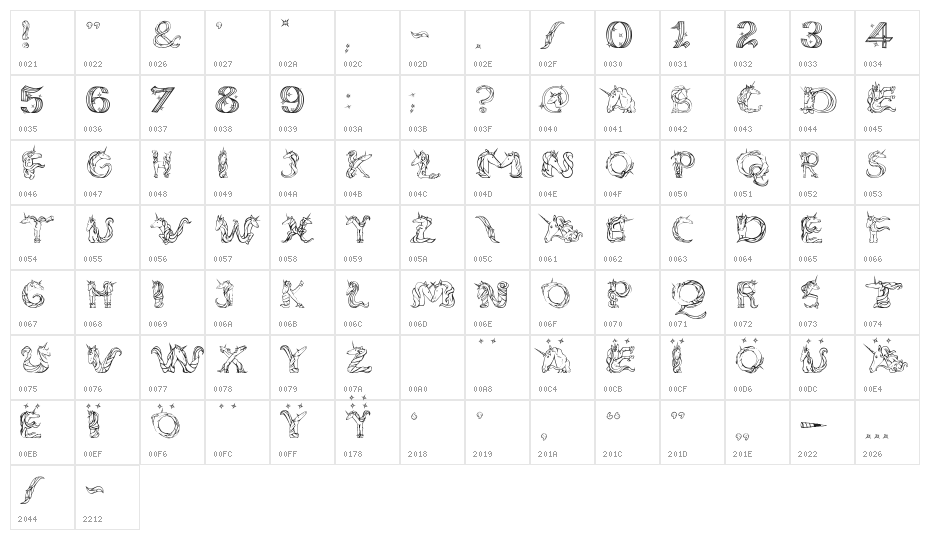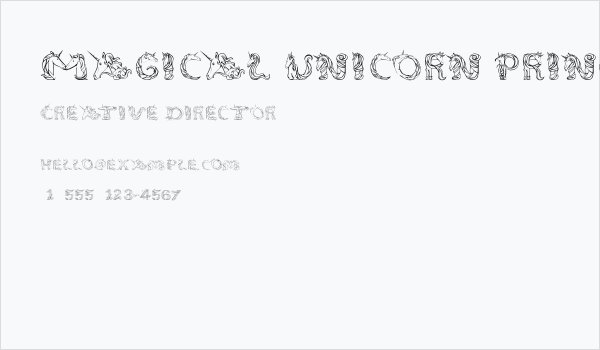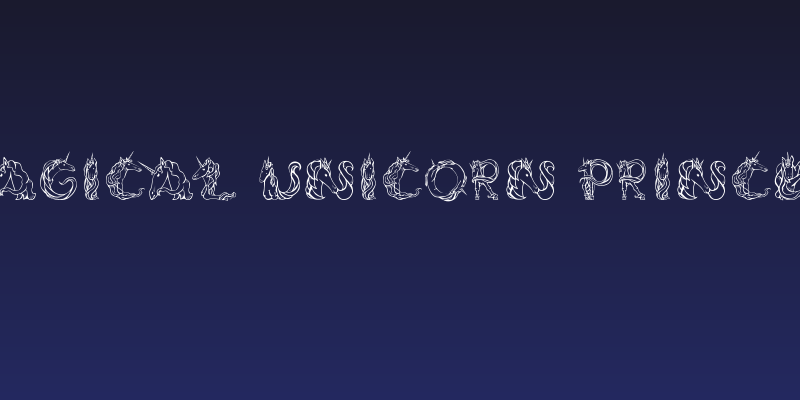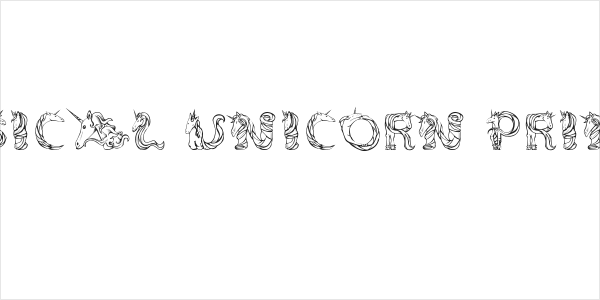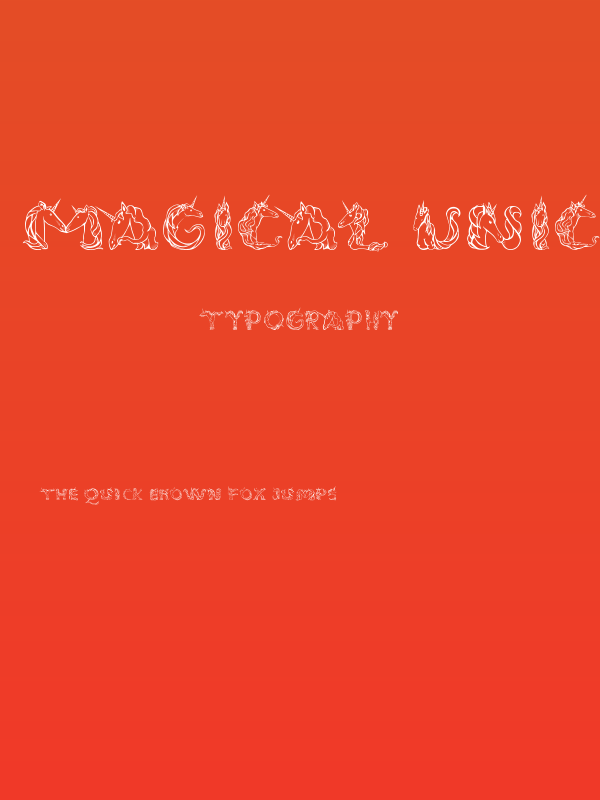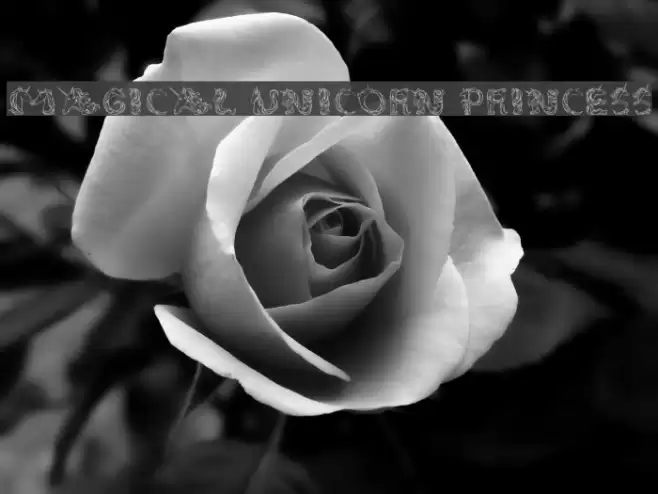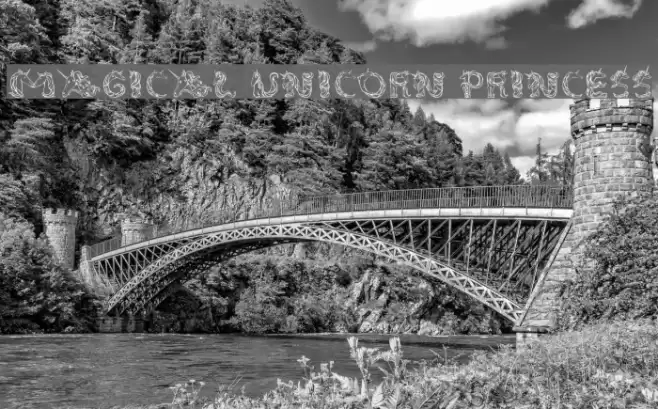
Magical Unicorn Princess Font
Magical Unicorn Princess Description
This whimsical and enchanting font features intricate details that evoke a sense of fantasy and magic. Each letter is adorned with elements reminiscent of unicorns and mythical creatures, incorporating swirls, stars, and flowing lines. The uppercase and lowercase letters maintain a consistent theme, with playful embellishments that add a touch of wonder. The numbers and special characters are equally decorative, making this font ideal for projects that require a touch of fantasy. Its unique style is perfect for capturing the imagination and adding a magical flair to any design.
| Proposed Projects | Ideal for children's book covers, fantasy-themed invitations, magical event posters, and whimsical branding projects. |